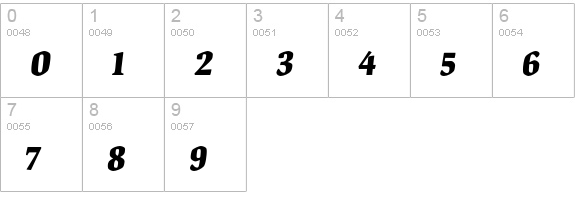
Origami Std Bold Italic is a strong, high-contrast, italic variant in the Origami typeface family \xE2\x80\x94 well suited to headlines, attention-grabbing titles, and strong calls-to-action.
Origami Std Bold Italic is a striking and modern typeface that exudes elegance and sophistication. The bold and italic styling adds a touch of flair to any design project, making it perfect for headlines, logos, and branding materials. The geometric shapes and clean lines of this font give it a contemporary and dynamic look that is sure to capture attention. Origami Std Bold Italic is versatile and adaptable, suitable for a wide range of design applications. Whether you are creating a sleek website, eye-catching posters, or stylish packaging, this font will help elevate your project to the next level. Best of all, Origami Std Bold Italic is available for free download at FontsMarket.com. This means you can easily access this high-quality font without breaking the bank. Don't miss out on the opportunity to enhance your designs with the bold and impactful style of Origami Std Bold Italic - download it for free today!